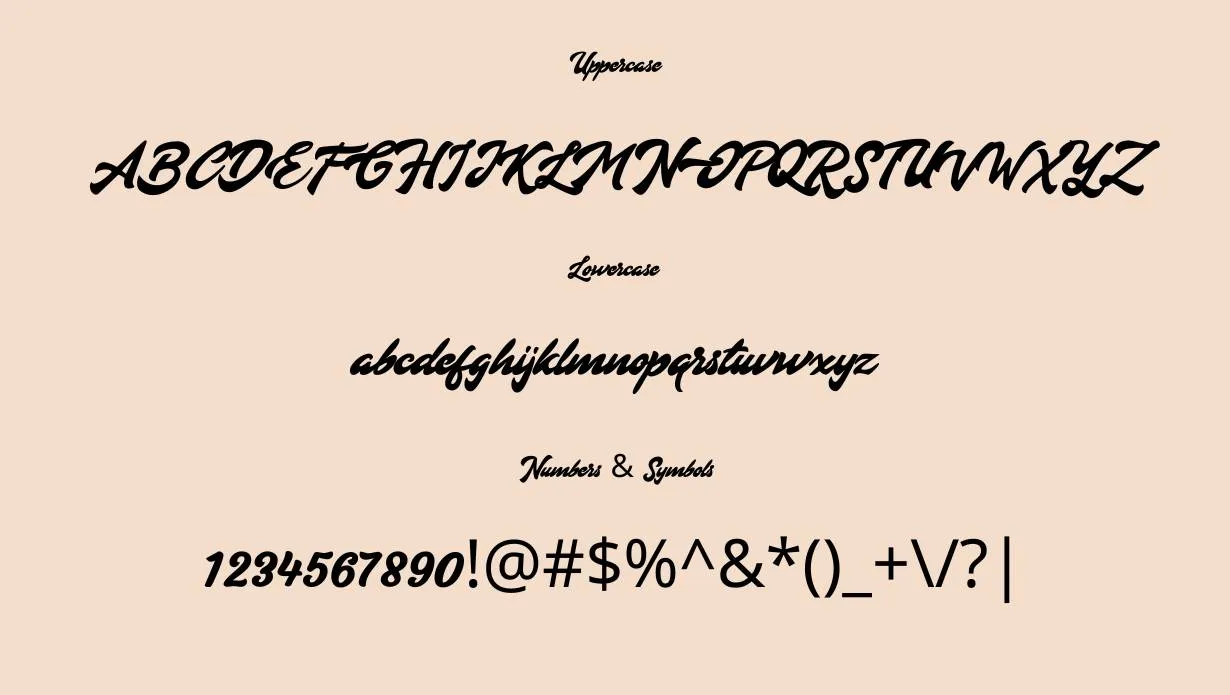
The Diora font is classy and refined, making it ideal for official documents in MS Word, like event invitations or certificates. Its luxurious look brings an element of sophistication to the text.
| Name | Diora Font |
| Designer | Ratin Creative |
In Adobe Photoshop, Diora is suitable for creating high-end and elegant designs, like branding or logo elements. Its refined and stylish look brings a sense of sophistication to any design.